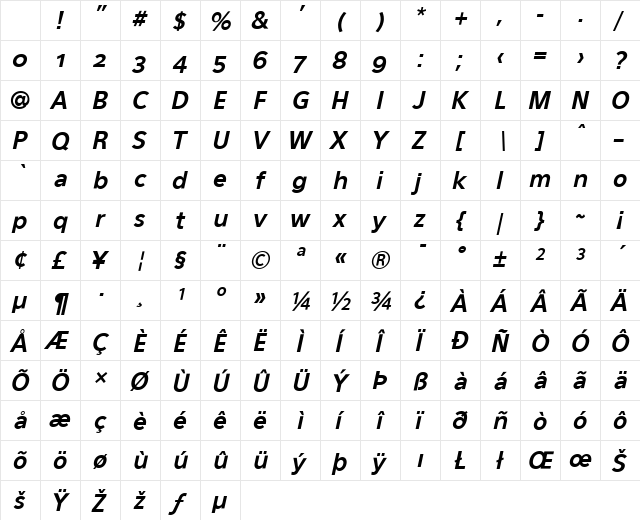
Complete Eau Sans Bold Old-styled Figures Oblique glyph index. Displaying only characters natively supported by Eau Sans Bold Old-styled Figures Oblique font.
Eau is a composed and adaptable typeface that performs quietly and consistently across a wide range of design contexts. The slanted form adds forward momentum and visual energy. Its bold stroke weight gives it real presence on the page.
Pro Tip: Use Eau for emphasis, pull quotes, and subheadings where its slanted energy can add rhythm to the layout.